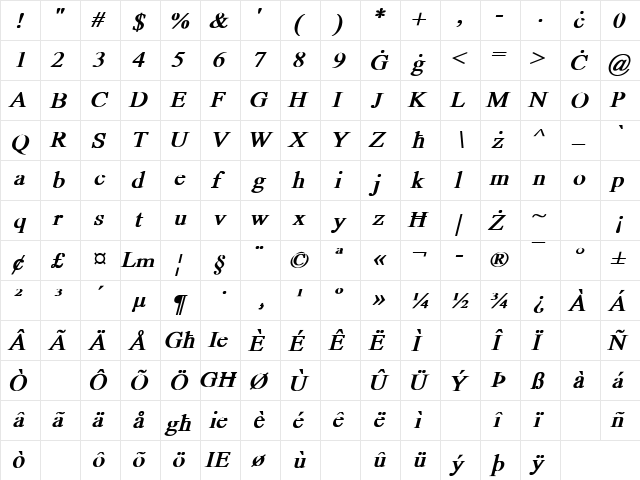
Tornado Bold Italic
Design Context for Tornado Typeface
Tornado offers clean, dependable letterforms without strong stylistic allegiance, making it a practical choice for designers who need flexibility. The dynamic lean of this cut emphasises speed and emphasis in any layout. Its bold stroke weight gives it real presence on the page.
Pro Tip: Try Tornado for annotation and caption copy alongside an upright companion — the contrast in angle creates a dynamic but ordered typographic system.